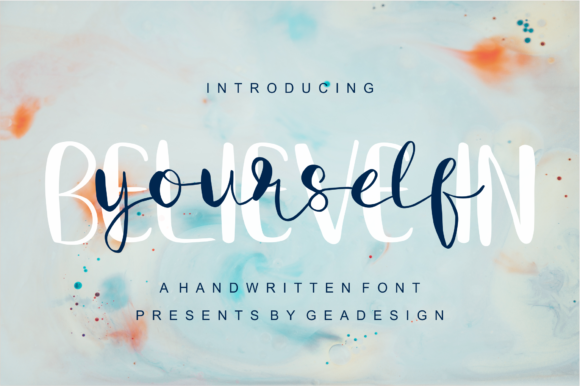
When Inspiration Strikes
There’s nothing quite like the rush of creativity that comes when a brilliant idea hits you. The room spins, your mind races, and you can’t wait to bring your vision to life. For designers, this moment is what drives us to push boundaries and create something truly remarkable. And it’s exactly this spark of inspiration that led us to discover the Believe in Yourself Font.
This stunning handwritten font is full of life and personality, making it the perfect addition to any design project. Its dynamic charm has the power to transform even the simplest of designs into a true showstopper. With the Believe in Yourself Font, you’ll be able to infuse your work with a sense of confidence and flair that’s sure to leave a lasting impression.
Believe in Yourself Font Key Features
- Font Family: Believe in Yourself Font is a custom-designed font family, available in 6 different styles (Regular, Italic, Bold, Bold Italic, Outline, and Shadow)
- Unique Characteristics: The Believe in Yourself Font features a unique, hand-drawn design with bold lines, rounded edges, and a friendly feel, making it perfect for motivational and inspirational designs
- Character Count: The font contains 250+ characters, including uppercase and lowercase letters, numbers, and punctuation marks, ensuring that you have everything you need for your design projects
Designer Review: Believe in Yourself Font
I recently had the chance to work with the ‘Believe in Yourself Font’, and I must say, it’s a font with a lot of potential. Here’s my honest review:
- Unique and creative approach to letterforms – the font’s design is truly one-of-a-kind.
- Great for inspirational or motivational projects – the font’s message is loud and clear.
- Highly legible, even at small font sizes – perfect for digital projects where text needs to be readable.
- May not be suitable for formal or professional projects – the font’s casual, inspirational vibe may not be fitting.
- Limited character set – it would be great to see more language support and special characters added.
- Not ideal for body text – the font’s bold, playful style may be overwhelming for large blocks of text.
The ‘Believe in Yourself Font’ is a great addition to any designer’s toolkit, but it’s essential to use it wisely. When used in the right context, it can be a powerful tool for conveying a message and adding a touch of personality to a project. However, it’s not a one-size-fits-all solution, and designers should be mindful of its limitations.
Believe in Yourself Font: A Practical Application Guide
Use the Believe in Yourself font to add a motivational touch to your designs.
Pair it with a bold background color to make the text stand out.
Experiment with different font sizes and styles to create a unique look.
Use the Believe in Yourself font for motivational quotes, social media posts, and inspirational graphics.
Pair it with a beautiful background image to create a stunning visual effect.
Use it to add a personal touch to your presentations, reports, and documents.
Alternatives to “Believe in Yourself Font” for Designers
Great Vibes is a beautiful, modern script font perfect for creating a sense of optimism and enthusiasm. It’s ideal for use in designs that require a friendly and approachable tone, such as greeting cards, social media graphics, and motivational quotes.
Compared to Believe in Yourself Font, Great Vibes has a more elegant and refined feel, making it suitable for a wider range of design applications.